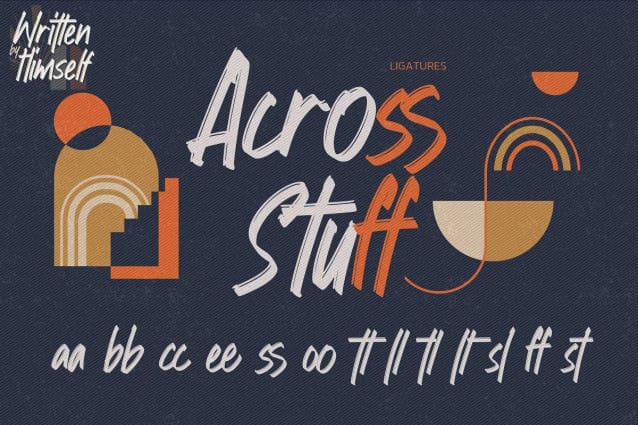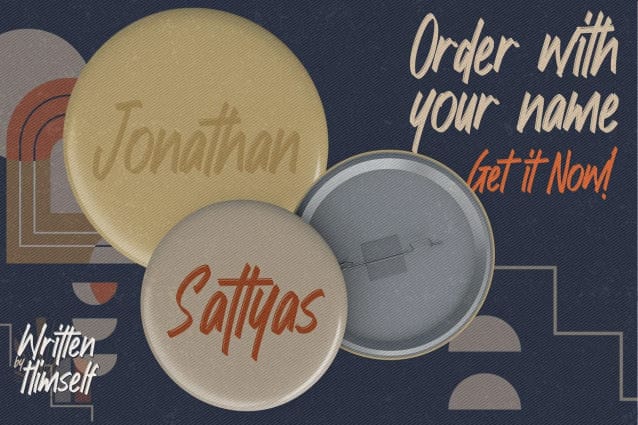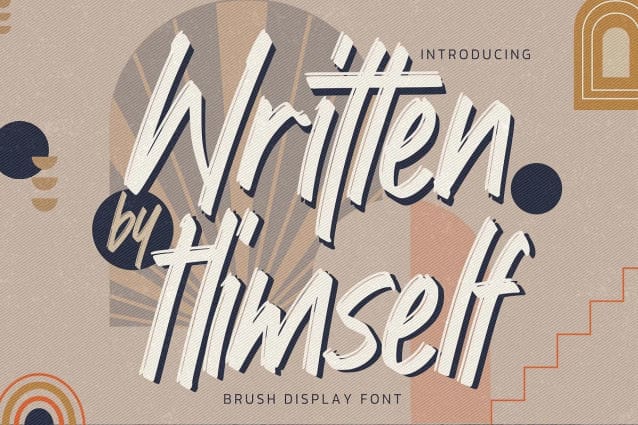
Written By Himself Font
Written by Himself Font is a cool and paint brushed display font. This font reads as strong, confident, and dynamic and can add tons of stylish character to your designs.